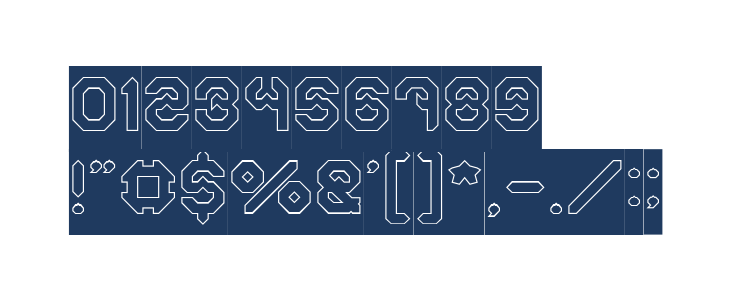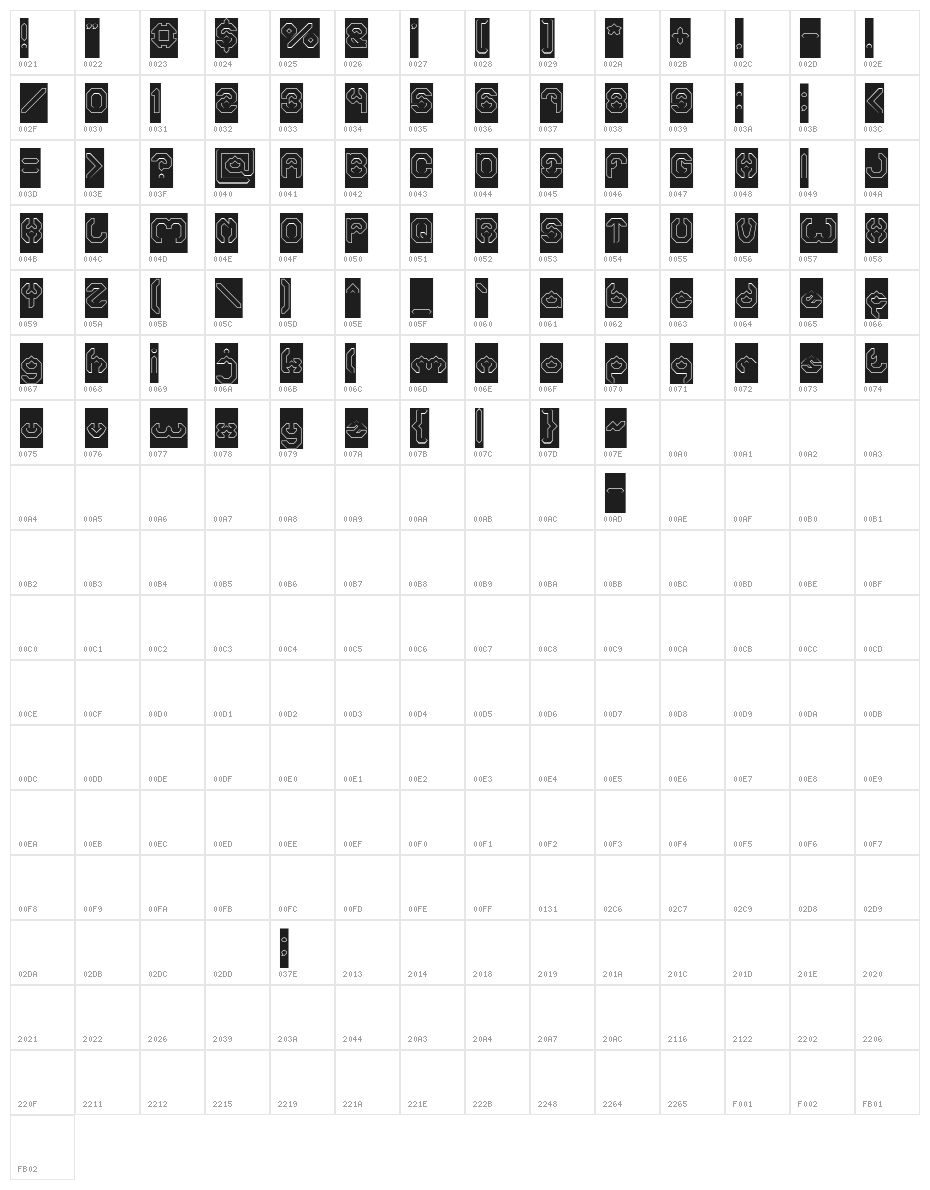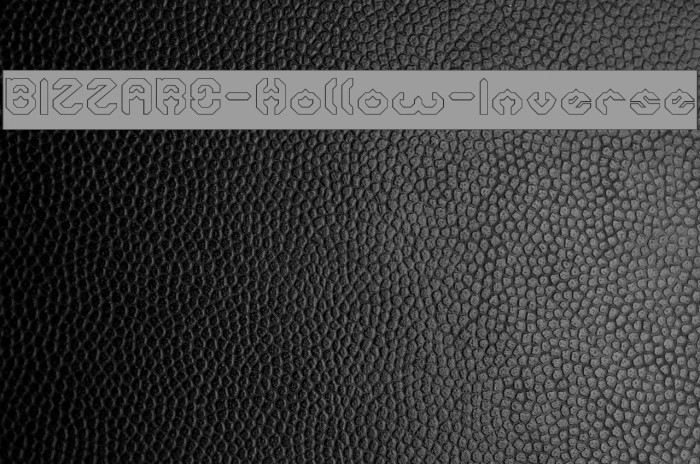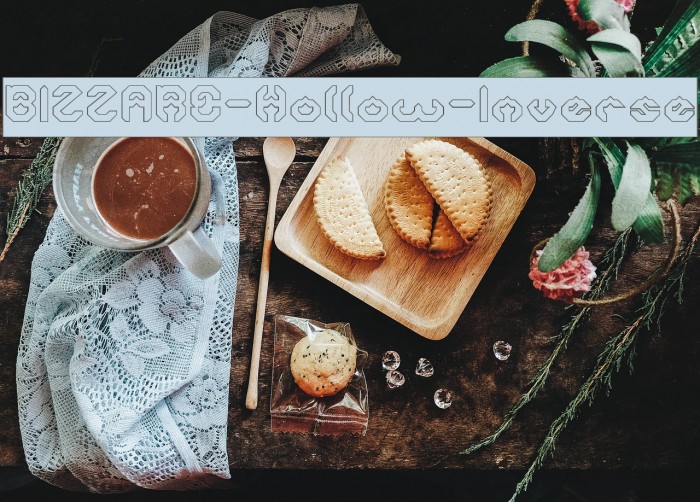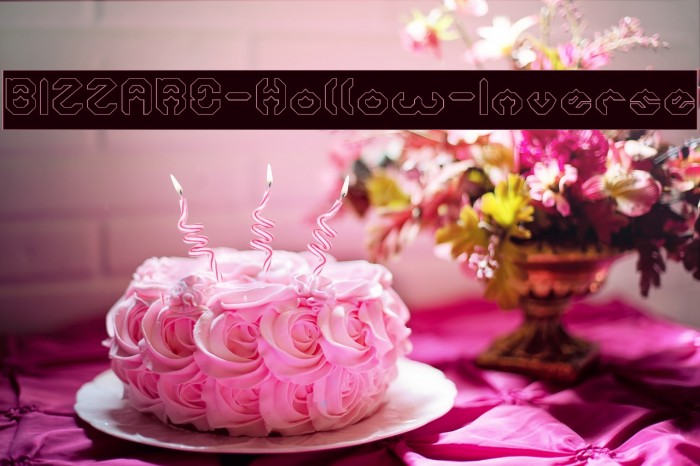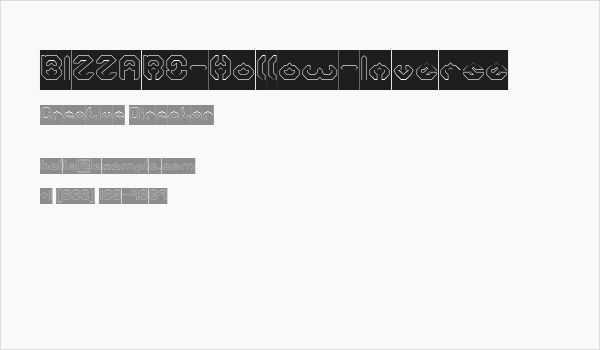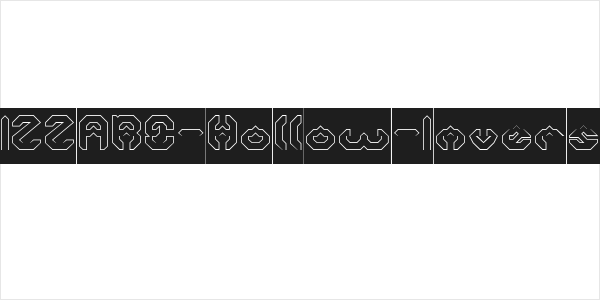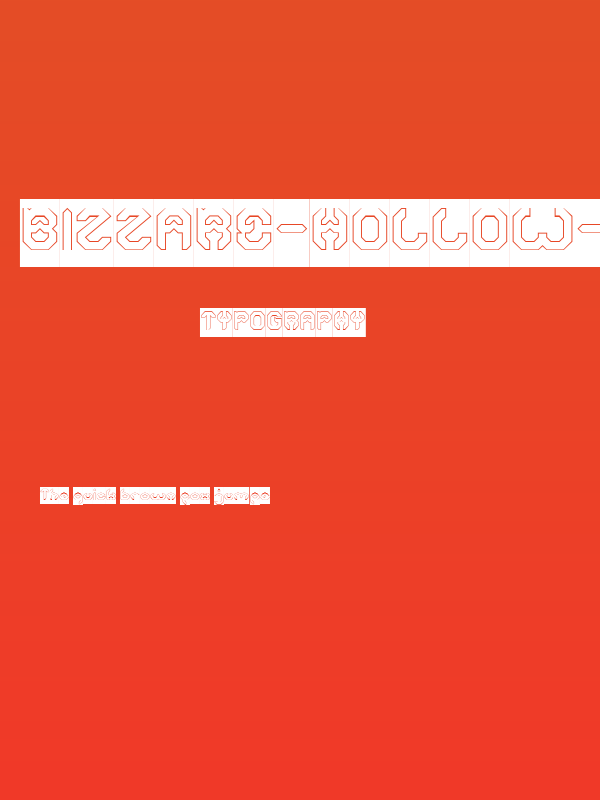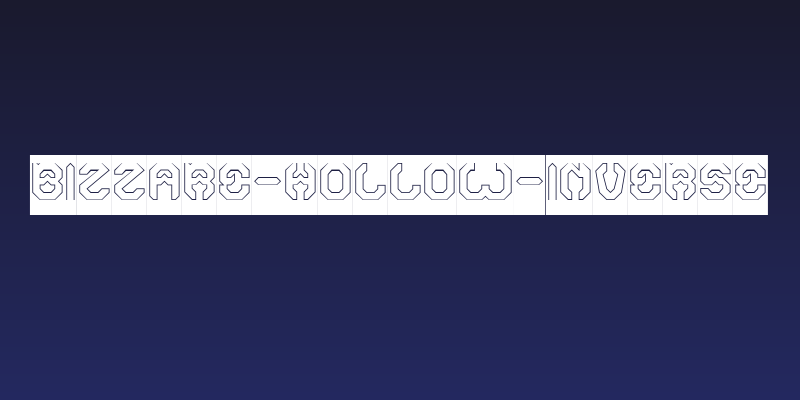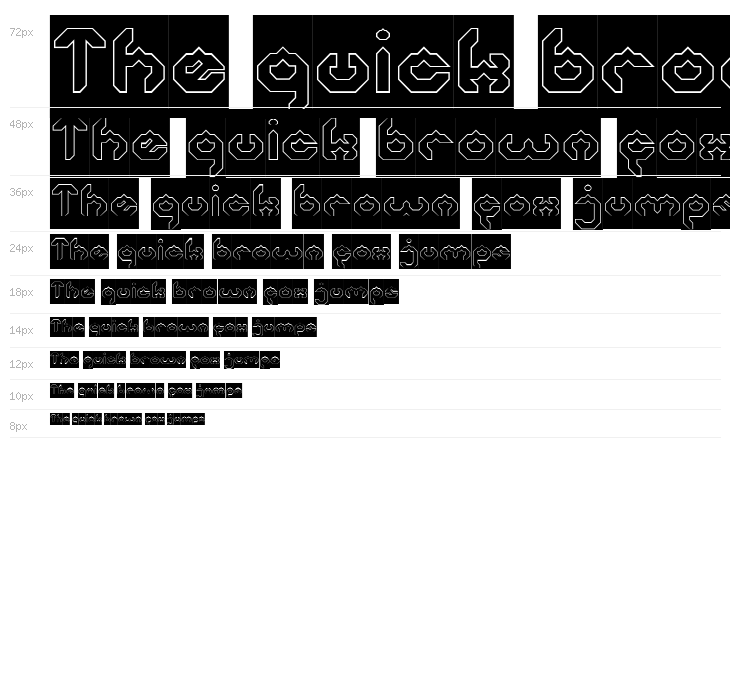
BIZZARE-Hollow-Inverse Font
BIZZARE-Hollow-Inverse Description
This font features a unique hollow design with an inverse style, creating a striking visual effect. The characters are outlined with a geometric, angular approach, giving them a futuristic and edgy appearance. The uppercase and lowercase letters maintain a consistent style, with sharp edges and a bold presence. The numbers and special characters follow the same design principles, ensuring uniformity across all glyphs. This font is highly decorative and stands out due to its unconventional and artistic structure, making it ideal for creative and modern projects.
| Proposed Projects | Ideal for modern branding, sci-fi themed designs, posters, and digital artwork. |